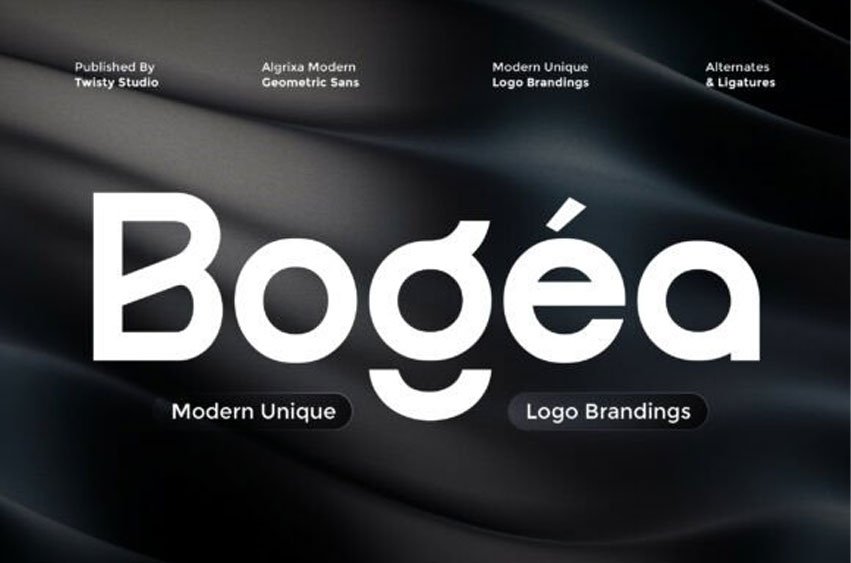
Bogea Font is a modern geometric sans typeface designed with precision and balance, making it perfect for professional logo creation. Its structured shapes and smooth curves create a harmonious look that feels both contemporary and versatile.
What makes Bogea truly stand out is its unique alternates, allowing you to explore more creative letter variations and build distinctive, memorable typography with ease. Whether you’re crafting a bold brand identity or refining a minimalist design, this font delivers a polished and flexible visual solution.